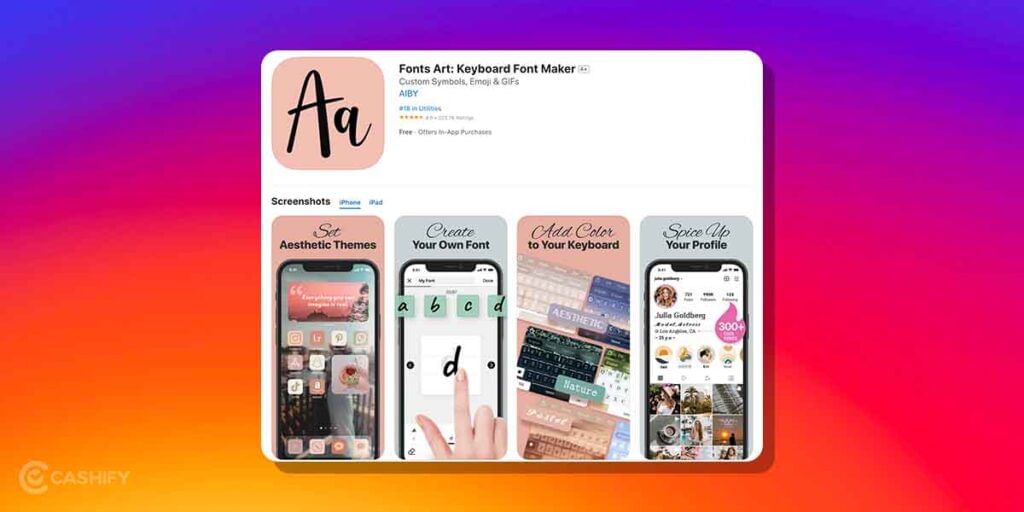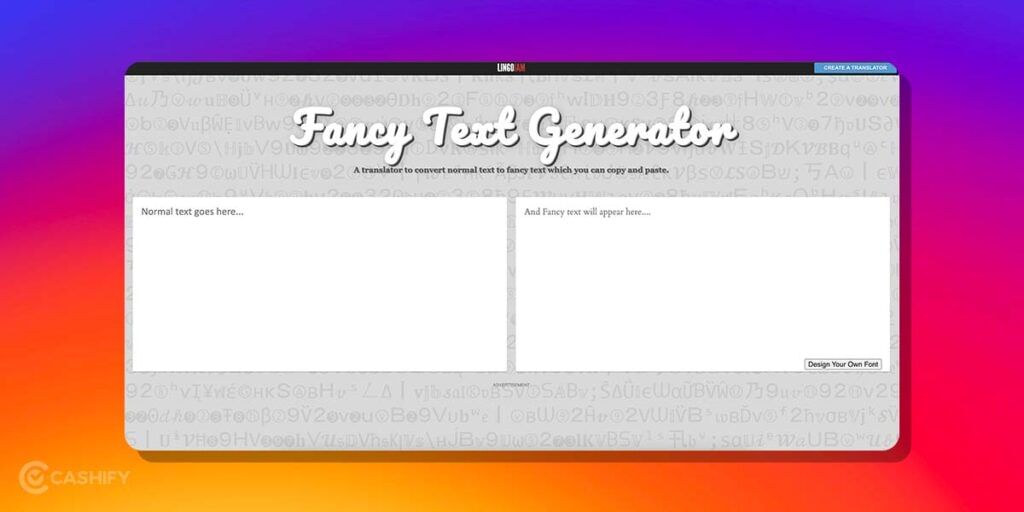
4 Ways To Get Best Instagram Font Style
• Instagram as a social media networking site provides wit lot many options to impress your audience. With the new, appealing, and best Instagram font style, catching the attention of followers and other people for your post and stories becomes much easier.
Generally, fonts are one of the best ways to express your aesthetic, styling, and caption in the most lucid ways. Most of the time, people tend to use fonts that are set by default. But do you know, that changing the font style immediately draws the attention of the user to what you have written and where have you placed the text?
With this article, you can expect to understand more about how to generate some cool and best Instagram font style for your profile, tips and tricks to use them, and some of the spaces it can be used at easily.
What is Font Style?
Font style is a specific lettering or text character design that gives a special look to the overall text outlay. It includes different aspects of writing a character: size, width, length, heaviness, emboss, spacing between characters, styling, and more. While using MS Word (considering that it is the most commonly used typing software), you must have come across names like Serif, Times New Roman, Calibri, Allegre, Comic Sans, and many others. They are some examples of font style.
Since our topic of discussion is limited to Instagram, in this article we look into different Instagram font style, their usage, and tips and tricks related to using them in the best possible way.
Where To Use The Different Fonts?
There are many avenues where you can use multiple font styles. However, if you specifically talk about Instagram, there are some designated spaces where you can use the font style. This will not only make the visuals more appealing but add an extra oomph factor to your profile too. You can use them in:
• Stories
• Posts
• Reels
• Videos
• Descriptions/Captions
4 Easy Ways To Generate Instagram Font
Now that we know about font style, its applications, and more, let’s discuss about some of the fast and simple ways to generate Instagram font using multiple methods.
1. Font Generator Websites
instagram font style website
There are different websites on the Internet that lets you generate font in multiple styles and make your text look cool and appealing. These websites mentioned here are completely free to use and do not come with too many advertisement pop-ups. They are tried and tested and work fine for generating font style for Instagram. Some of them are:
With them, you do not need to install the software separately and simply copy and paste the text from the web to the application.
2. Instagram application
instagram application
If you are using the Instagram application, you know that there are various text generation options available. However, you can see them in reels and stories alone. You can access the fonts from the Instagram application in the following way:
• Open the Instagram application > Go to Stories on the top left of your profile(profile photo with + sign)
• Tap on Create and click on Blank space to start typing.
• You will get a list of fonts that you can use for stories at the bottom of the screen. Choose the one that you like the most.
• Similarly, you can add text for reels too. By going into the reel section and adding the video you want to work on. On this video, click on the blank space and start typing using the font options available.
3. Special Font Apps
Some of the applications are specially developed to generate different font styles for social media profile, websites, etc. These applications are available for Play Store on Android as well as App Store on Apple. With these apps too, all you have to do is to generate text, copy it, and paste them directly.
4. Picture Editing Apps
Picture editing apps are different from font generator apps as they specifically do not cater to fonts. Rather, provides holistic services such as picture editing, video editing, adding filters, transitions, etc. You get a plethora of font styles in different designs that you can save on a blank slide and then use on Instagram stories, reels, or posts by copy-pasting directly from the photo.
• Instagram font style can help you spice up your social media game by adding a plus factor to whatever text goes in.
• However, people generally go with the default text style that is set on the application.
• In this article, get ready to learn about generating best font style on Instagram and where to use it.